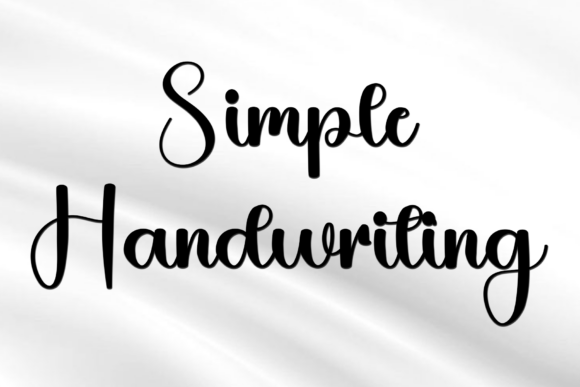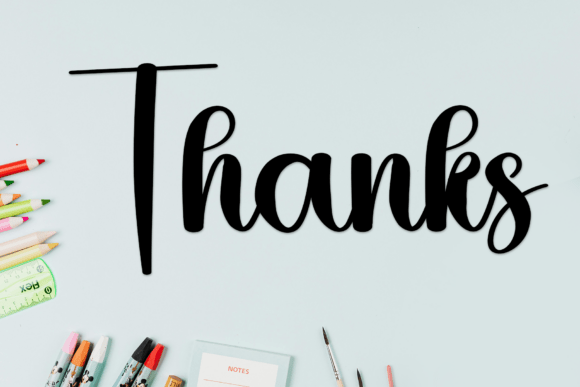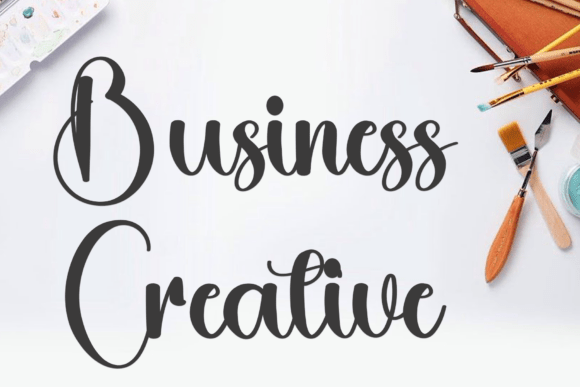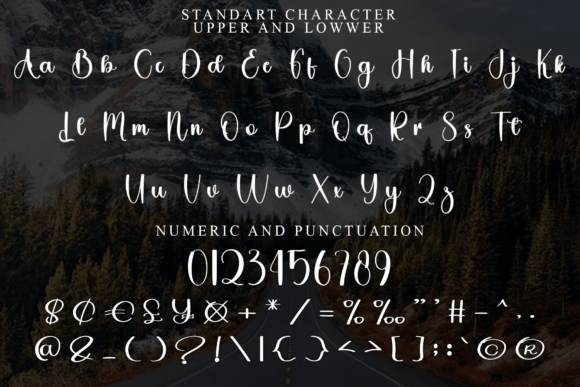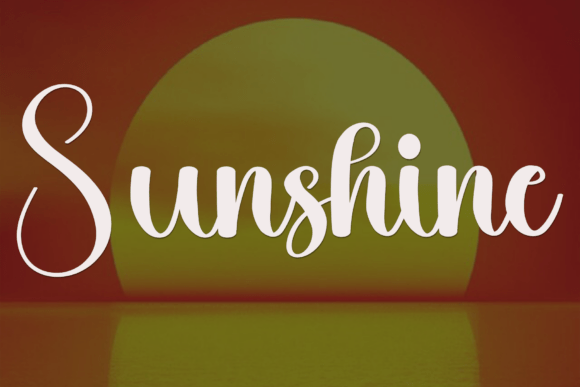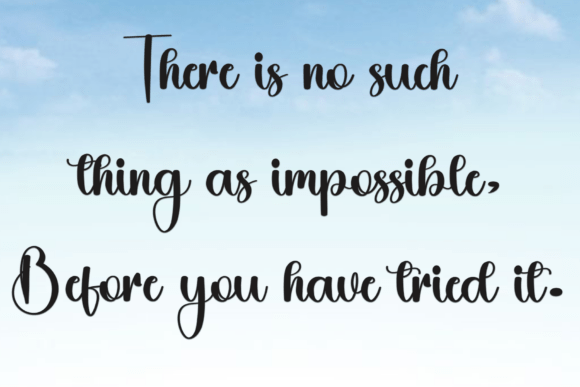
Introducing Buffalo Font: A Unique and Versatile Typeface for Creative Projects
In the world of typography, a font can make or break a design project. It’s what sets the tone, conveys the message, and captures the audience’s attention. If you’re a designer, crafter, or creative looking for a font that stands out from the crowd, look no further than Buffalo Font. This beautiful and eye-catching typeface is designed with a soft, unique touch that will elevate your designs and make them appealing to a wide range of audiences.
The Distinctive Characteristics of Buffalo Font
Buffalo Font boasts distinctive strokes that give it a special character, making it meaningful and versatile for future use. Its unique design makes it perfect for a variety of creative projects, from crafts and design projects to other artistic and creative works. The font’s natural style is compatible with various applications, including Windows and open-source platforms, making it an ideal choice for designers and crafters who work on different mediums.
A Wide Range of Characters at Your Disposal
One of the standout features of Buffalo Font is its extensive character set. With a wide range of characters, you’ll have everything you need to create stunning designs that capture your audience’s attention. Whether you’re working on a logo, brochure, or social media graphic, this font has got you covered. The variety of characters also ensures that your designs will be cohesive and visually appealing, making it perfect for branding and marketing materials.
Buffalo Font is specifically designed with designers and crafters in mind. Its unique touch and natural style make it perfect for a wide range of design projects, from digital graphics to print materials. The font’s versatility also makes it an excellent choice for crafts, such as handmade cards, invitations, and DIY projects. With Buffalo Font, you can add a personal touch to your creations and make them truly special.
Enhance Your Designs with Buffalo Font
With Buffalo Font, you can take your designs to the next level. Its unique and natural style will add a touch of elegance and sophistication to your creations, making them appealing to a wide range of audiences. Whether you’re working on a personal project or a client’s design brief, this font is sure to impress. Its versatility and compatibility also make it an excellent choice for designers who work on multiple projects and need a font that can adapt to different styles and themes.
Why Choose Buffalo Font?
So, why choose Buffalo Font over other typefaces? Here are just a few reasons why this font stands out:
- Unique and eye-catching design: Buffalo Font’s soft, unique touch sets it apart from other fonts, making it perfect for designers and crafters who want to create stunning designs.
- Extensive character set: With a wide range of characters, you’ll have everything you need to create cohesive and visually appealing designs.
- Perfect for design projects and crafts: Buffalo Font is specifically designed with designers and crafters in mind, making it perfect for a wide range of creative projects.
In conclusion, Buffalo Font is a beautiful and eye-catching typeface that’s perfect for designers, crafters, and creatives who want to elevate their designs. Its unique and natural style, extensive character set, and versatility make it an excellent choice for a wide range of design projects and crafts. Whether you’re working on a digital graphic, print material, or handmade craft, Buffalo Font is sure to impress. So, why not give it a try and see how it can enhance your designs?